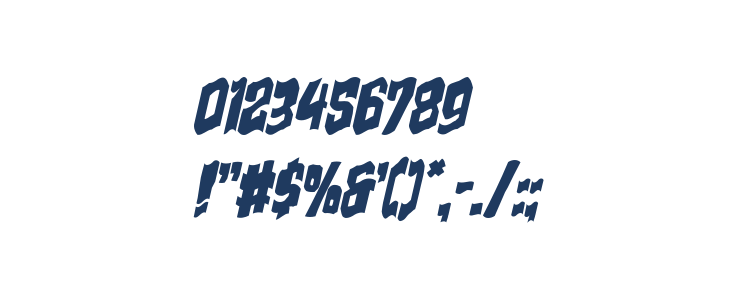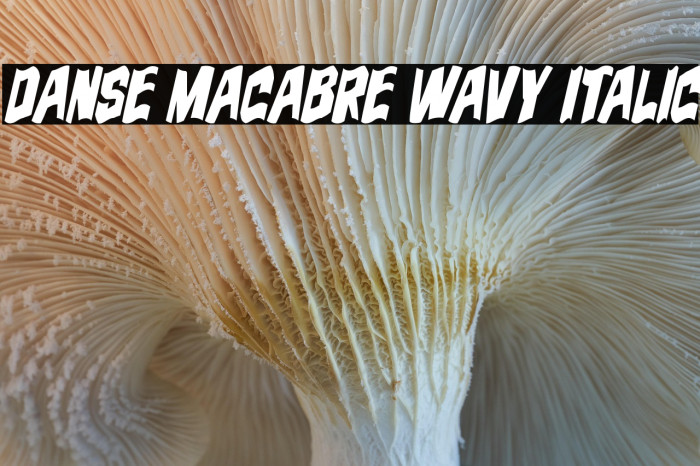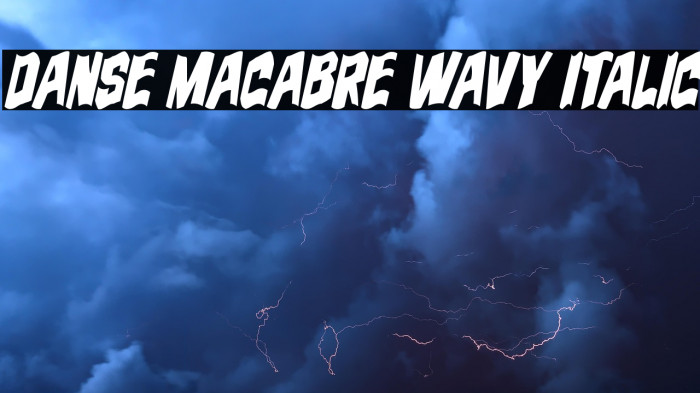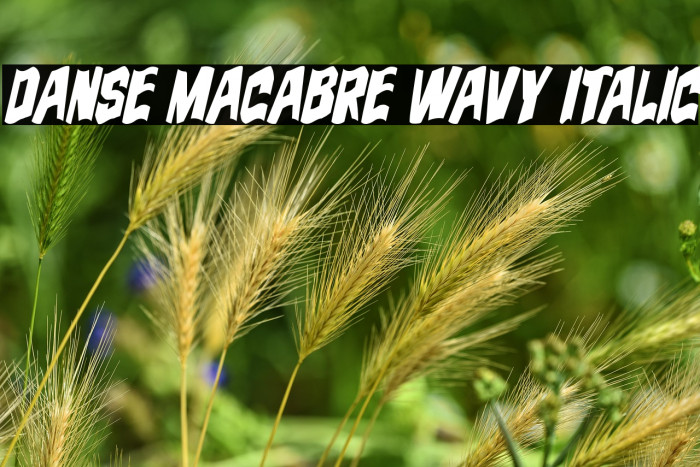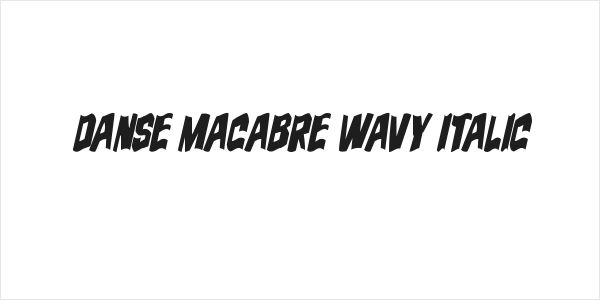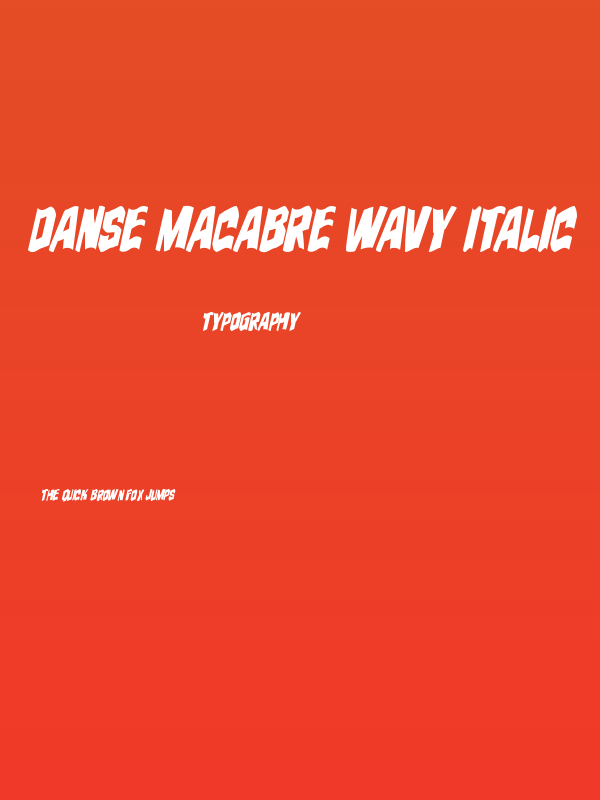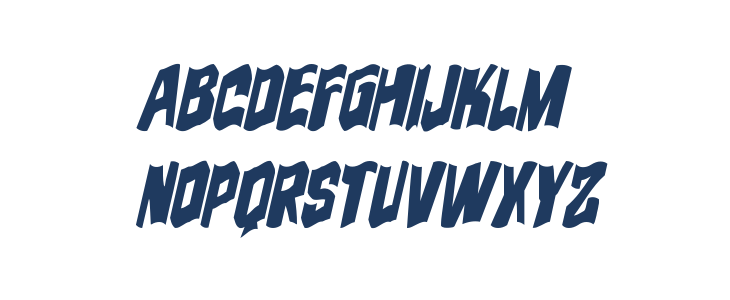
Danse Macabre Wavy Italic Font
Danse Macabre Wavy Italic Description
This font features a bold, wavy design with a distinct italic slant, giving it a dynamic and energetic appearance. The characters are heavily stylized with sharp angles and exaggerated curves, creating a sense of movement and flair. The uppercase and lowercase letters maintain a consistent style, with the uppercase being slightly more pronounced. Numbers and special characters are equally bold and maintain the same wavy, italicized style. The font's unique design makes it stand out, ideal for projects that require a strong visual impact.
| Proposed Projects | Ideal for posters, album covers, branding, and any project needing a bold, eye-catching typeface. |